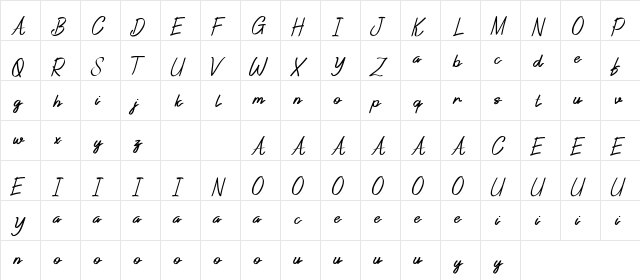
Reyburn Demo Script Regular
Design Context for Reyburn Demo Script Typeface
Reyburn Demo Script brings a calligraphic fluidity to the page — its connecting strokes and expressive curves give it an unmistakably human quality.
Font Pairing: Combine Reyburn Demo Script with a simple geometric sans for maximum contrast — the tension between flowing curves and clean structure is a classic typographic pairing.
Pro Tip: Use Reyburn Demo Script for short runs of text — names, titles, or taglines. Extended body copy in script faces tires the eye quickly.